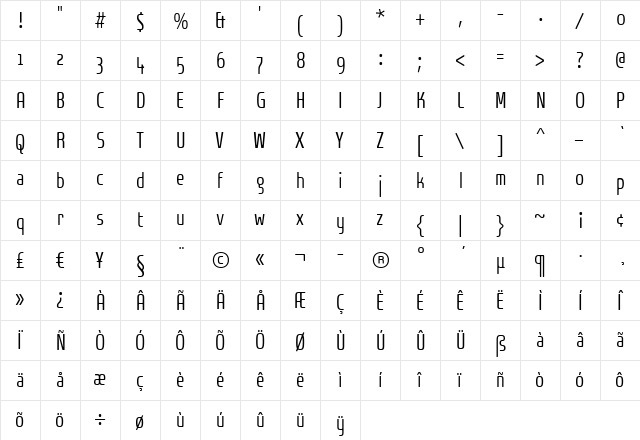
DieselisEconomic-Zero Regular
Design Context for DieselisEconomic-Zero Typeface
DieselisEconomic-Zero takes a measured approach to typography — its balanced proportions and neutral character make it a reliable workhorse for both digital and print work.
Pro Tip: Pair DieselisEconomic-Zero with a font of contrasting weight or personality to build a more expressive typographic hierarchy.